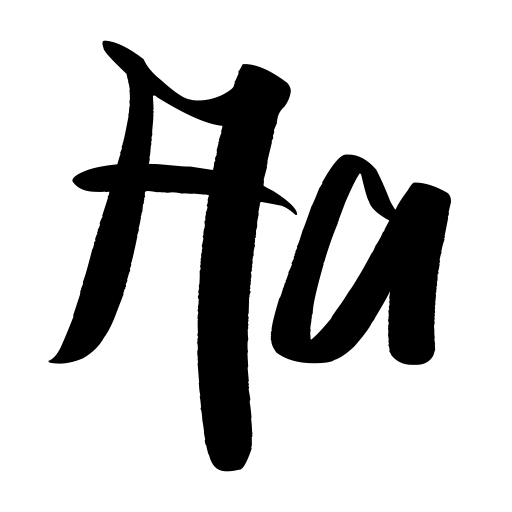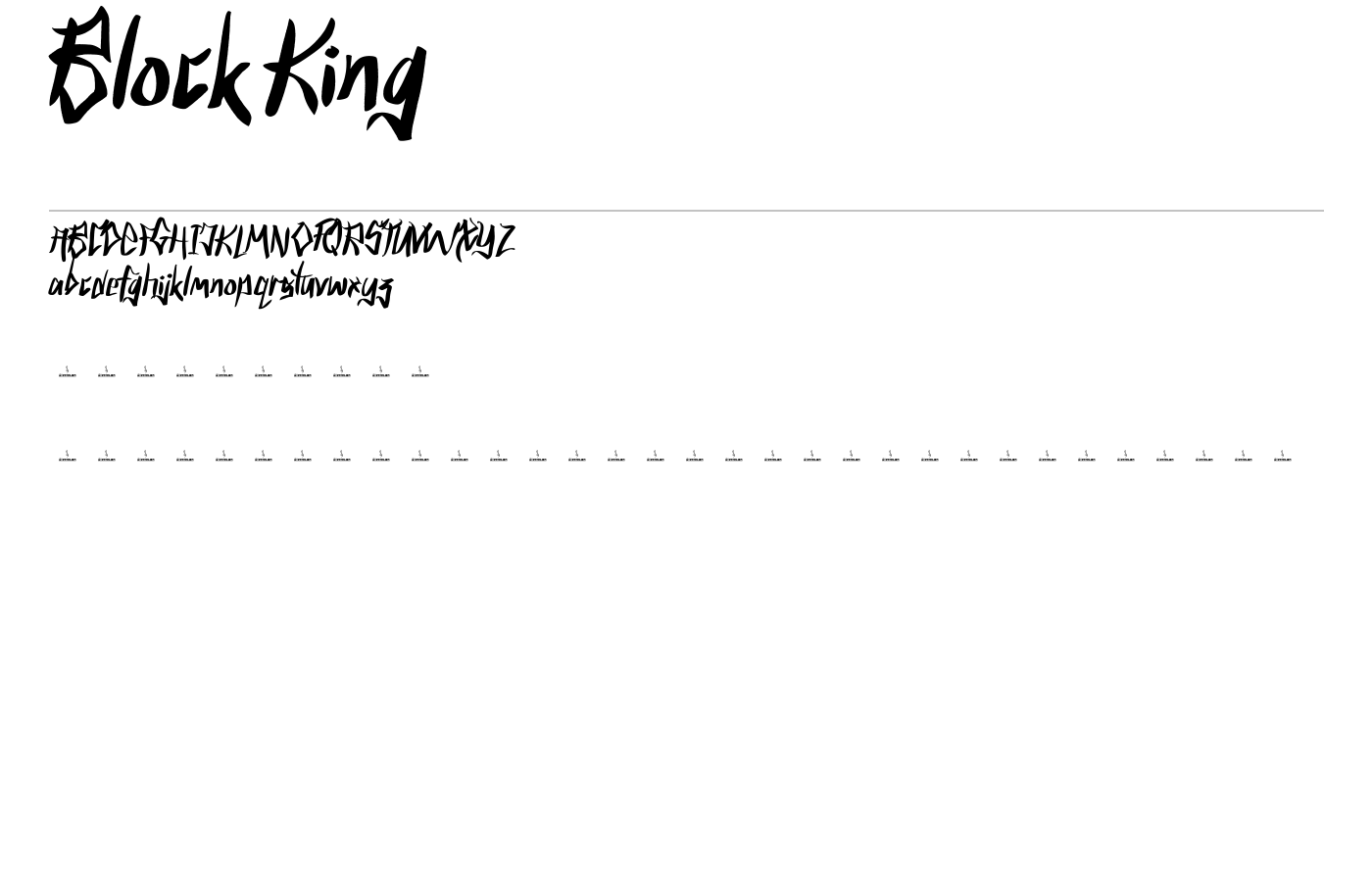
Block King is a bold, handwritten-style font with a striking, angular character and a dynamic, expressive feel. Its sharp strokes and irregular forms give it an edgy, urban vibe that works well for attention-grabbing headlines, logos, and creative projects seeking a rebellious or artistic personality. This font is best suited for designs that want to convey energy and individuality rather than traditional readability.
Block King Font
About Block King Font